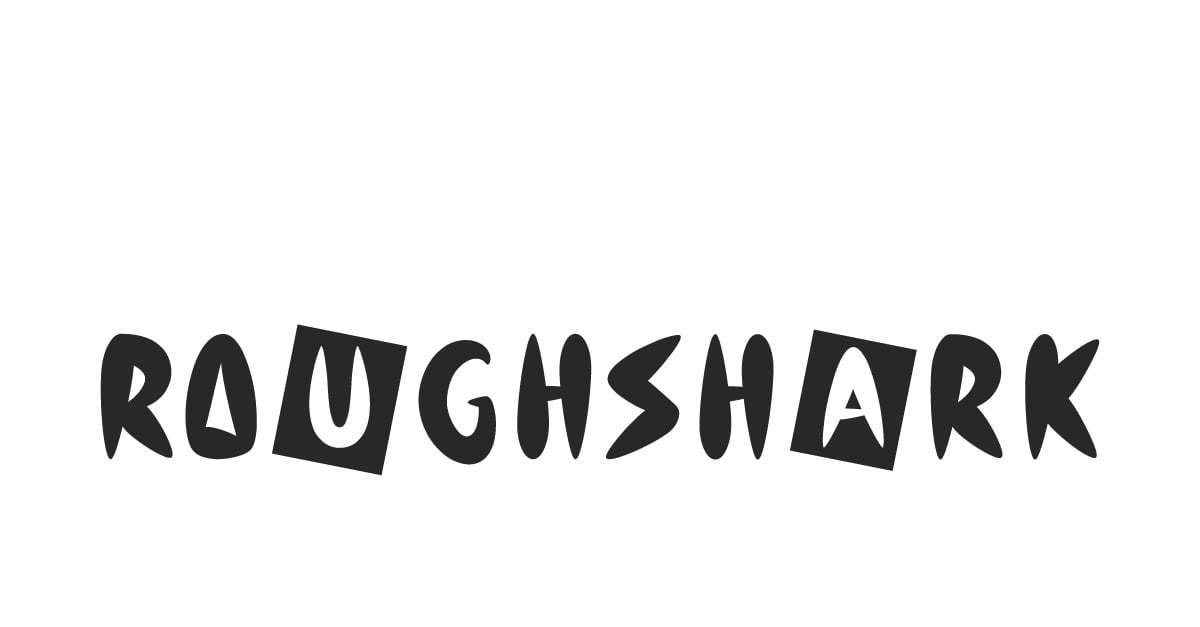
Roughshark Playful Display Font
Roughshark Font is a unique display font with comic style, created by NihStudio. This font has sharp edges like shark teeth in each letter and other unique things make it stand out. It would be perfect for many industries such as animator, cartoon things, education, food brand, games, kids stuff, movie, publishing, sports, etc.
Roughshark Font will be great for apps, billboard, blog header, business card, creating logo, product packaging, skateboard writing, wall art, etc. Perfectly crafted to create a cool look, easy to read and have additional characters that make it standout.